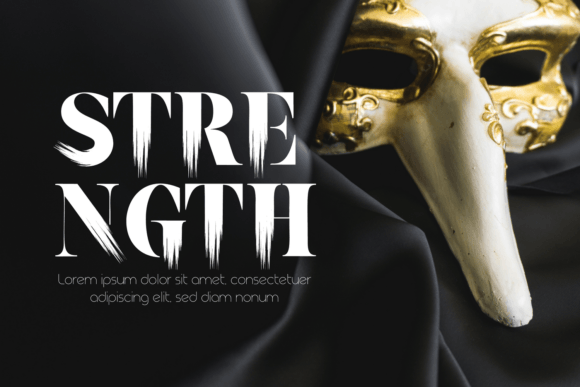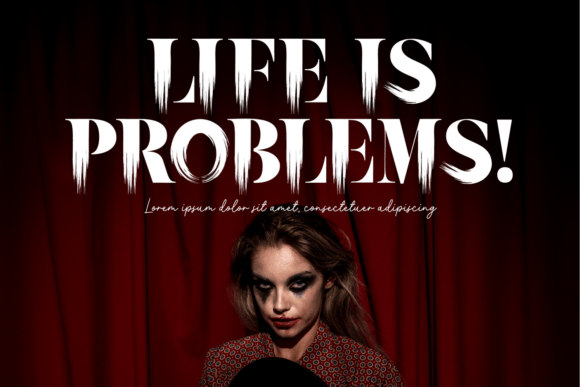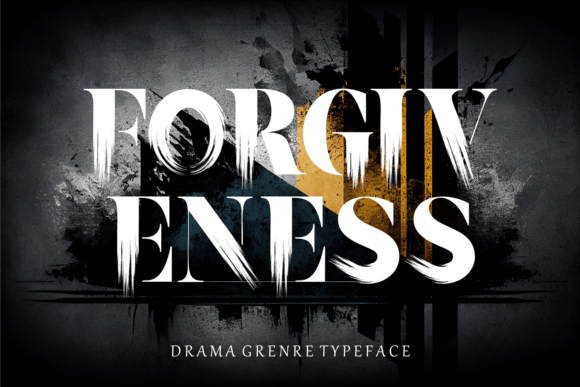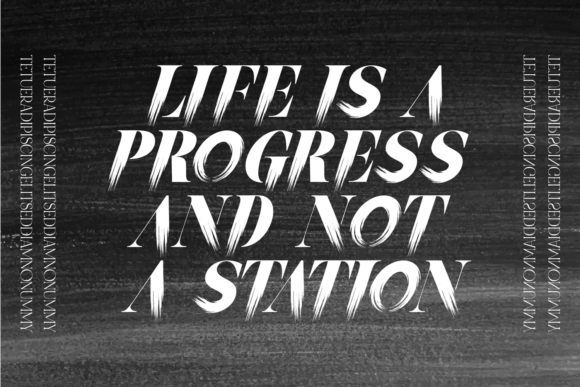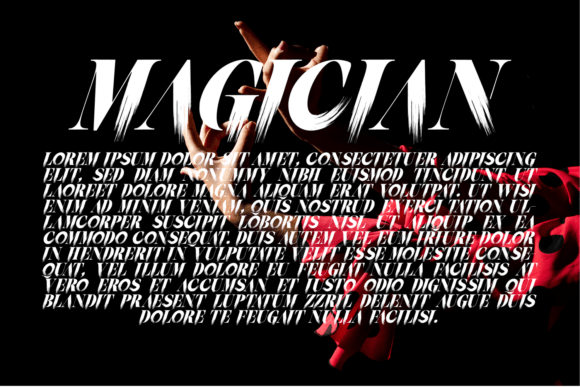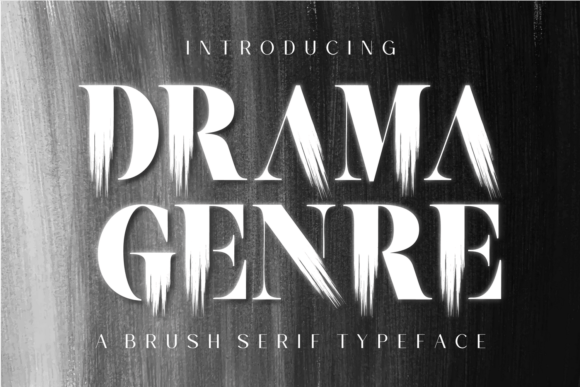
Unlocking the Power of Drama: A Deep Dive into the Drama Genre Serif Brush Font
In the realm of typography, fonts play a pivotal role in conveying the essence and tone of a message. Among the myriad of font genres, the Drama Genre Serif Brush Font stands out for its unique blend of raw, bold, and earthy characteristics. This entirely hand-painted serif font is not just a typeface; it’s an artistic statement that brings a distinctive touch to any design project. In this article, we’ll explore the nuances of the Drama Genre Serif Brush Font, its features, and how it can elevate your design work.
The Essence of Drama Genre Serif Brush Font
The Drama Genre Serif Brush Font is a masterpiece of hand-painted artistry. Its raw, bold, and condensed structure makes it a perfect choice for designers looking to make a statement. The font’s brushy imperfections and earthy realism add a layer of authenticity and texture, reminiscent of handcrafted artworks. This font is not just about conveying a message; it’s about evoking an emotion, a sense of drama and grandeur.
Key Features of Drama Genre Serif Brush Font
- Hand-Painted Serif: Every detail of this font is meticulously hand-painted, giving it a unique and personal touch.
- Raw and Bold: The font’s condensed and bold structure makes it perfect for headlines, posters, and any design that needs to stand out.
- Brushy Imperfections: The imperfections in the brush strokes add a layer of realism and texture, making the font feel more organic.
- Earthy Realism: The earthy tone of the font brings a sense of warmth and authenticity to any design.
- Uppercase and Alternate Glyphs: While the font is primarily uppercase, it also offers alternate glyphs as lowercase, providing versatility in design.
Applications of Drama Genre Serif Brush Font
The Drama Genre Serif Brush Font is incredibly versatile, making it suitable for a wide range of design projects. Here are some of the ideal applications:
- Posters: The font’s bold and dramatic nature makes it perfect for poster designs that need to grab attention.
- Headlines: Whether it’s for a magazine, newspaper, or digital publication, this font can make your headlines stand out.
- Advertisements: The font’s ability to make a statement is invaluable in advertising, where grabbing attention is crucial.
- Bold Typographic Pieces: Any design that relies heavily on typography, such as billboards, banners, and signage, can benefit from this font.
Tips for Using Drama Genre Serif Brush Font
To make the most of the Drama Genre Serif Brush Font, consider the following tips:
- Use it Sparingly: Due to its bold nature, it’s best to use this font sparingly to avoid overwhelming the viewer.
- Pair with Simpler Fonts: When combining this font with others, pair it with simpler fonts to create contrast and hierarchy.
- Consider the Background: The earthy tone of the font can blend well with natural or muted backgrounds, enhancing its rustic charm.
- Play with Sizes: Experimenting with different sizes can help in creating a visual hierarchy and adding drama to your design.
The Drama Genre Serif Brush Font is a powerful tool in the arsenal of designers and crafters. Its unique blend of raw, bold, and earthy characteristics makes it perfect for projects that demand attention and evoke emotion. By understanding its features and applications, and by using it thoughtfully, designers can unlock the full potential of this remarkable font and elevate their design work to new heights.
Whether you’re a seasoned designer or a crafting enthusiast, the Drama Genre Serif Brush Font offers a world of creative possibilities. So, embrace its dramatic flair and let it add a touch of boldness and authenticity to your next design project.